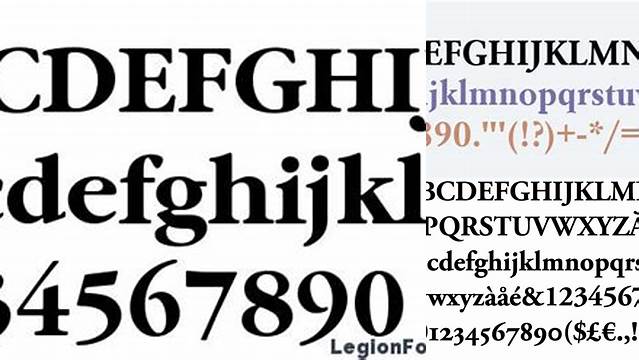
Introduction to Urw Garamond Bold Font
Urw Garamond Bold font is a timeless classic that has graced countless publications and designs over the years. Its elegant curves and strong presence make it a favorite among designers and typographers alike. This article delves into the history, characteristics, and availability of Urw Garamond Bold font, with a focus on how you can access it for free.
Garamond, as a typeface, has a rich history dating back to the 16th century. Claude Garamond, a Parisian printer, and punch cutter, is credited with creating the original Garamond typeface. His designs were based on the Aldine Roman types, which were themselves inspired by humanist minuscule letterforms. Garamond's fonts were known for their readability, elegance, and balance, and they quickly became popular throughout Europe. Over the centuries, Garamond's designs have been reinterpreted and adapted by various foundries and designers, resulting in a wide range of Garamond variations. Urw Garamond is one such variation, created by the URW (Unified Roman Works) studio. It is a digital adaptation of the classic Garamond typeface, designed to be both faithful to the original and optimized for modern use. Urw Garamond Bold is a specific weight of the Urw Garamond family, characterized by its heavier strokes and increased visual impact. The bold weight is ideal for headlines, subheadings, and other text elements that need to stand out. It retains the elegance and readability of the regular Garamond weight while adding a touch of authority and emphasis. The Urw Garamond Bold font is a versatile typeface that can be used in a wide range of design applications. Its classic appearance makes it suitable for traditional and formal designs, while its clean lines and modern construction allow it to be used in more contemporary contexts as well. Whether you're designing a book, a website, or a corporate identity, Urw Garamond Bold font can add a touch of sophistication and class to your work.
Key Characteristics of Urw Garamond Bold
Understanding the key characteristics of Urw Garamond Bold font is essential for appreciating its design and using it effectively. This section will explore the defining features that make this font so distinctive and versatile.
One of the most notable characteristics of Urw Garamond Bold font is its elegance. The font's letterforms are characterized by smooth, flowing curves and a refined aesthetic. This elegance makes it suitable for high-end designs, such as those used in the fashion, beauty, and luxury industries. The font's elegance is not just a matter of aesthetics; it also contributes to its readability. The well-proportioned letterforms and generous spacing make it easy to read, even at small sizes. Another key characteristic of Urw Garamond Bold font is its legibility. The font is designed to be easy to read in a variety of contexts, from print to digital. The letterforms are clear and distinct, and the font's overall design is optimized for readability. This legibility makes it a good choice for body text, as well as headlines and subheadings. In addition to its elegance and legibility, Urw Garamond Bold font is also known for its versatility. The font can be used in a wide range of design applications, from traditional to modern. Its classic appearance makes it suitable for formal designs, while its clean lines and modern construction allow it to be used in more contemporary contexts as well. Urw Garamond Bold font is also characterized by its strong presence. The bold weight gives the font a commanding presence on the page, making it ideal for headlines, subheadings, and other text elements that need to stand out. The bold weight also adds a touch of authority and emphasis to the text. The Urw Garamond Bold font features a classic design. The font is based on the original Garamond typeface, which was created in the 16th century. This classic design gives the font a timeless quality that makes it suitable for a wide range of applications. The font's classic design is also a testament to its enduring appeal. Despite being centuries old, the Garamond typeface remains one of the most popular and widely used fonts in the world.
Tips for Using Urw Garamond Bold Effectively
To make the most of Urw Garamond Bold font, keep these tips in mind. They'll help you ensure your designs are both beautiful and functional.
Firstly, use it sparingly. Urw Garamond Bold font is a strong and distinctive typeface, so it's best to use it sparingly. Overusing it can make your design look cluttered and overwhelming. Instead, use it to highlight key elements, such as headlines, subheadings, and callouts. This will help to draw the reader's eye to the most important parts of your design. Secondly, pair it with a complementary font. Urw Garamond Bold font pairs well with a variety of other typefaces. Some good options include sans-serif fonts like Helvetica or Arial, as well as other serif fonts like Times New Roman or Georgia. Experiment with different font pairings to find a combination that works well for your design. When pairing fonts, it's important to consider the overall tone and style of your design. Choose fonts that complement each other and create a cohesive look. Thirdly, adjust the letter spacing and line height. Urw Garamond Bold font can sometimes appear a bit cramped, especially at smaller sizes. To improve readability, try adjusting the letter spacing and line height. Increasing the letter spacing can help to make the font more legible, while increasing the line height can make the text easier to read. Be sure to experiment with different settings to find a combination that works well for your design. In addition to adjusting the letter spacing and line height, you should also pay attention to the kerning. Kerning is the process of adjusting the spacing between individual letters to improve the overall appearance of the text. Urw Garamond Bold font can sometimes have awkward kerning, especially between certain letter combinations. To fix this, you can manually adjust the kerning in your design software. This can help to make the text look more polished and professional. Finally, use it at the right size. Urw Garamond Bold font is best used at larger sizes, such as for headlines and subheadings. Using it at smaller sizes can make it difficult to read. If you need to use it at a smaller size, try increasing the letter spacing and line height to improve readability. Also, be sure to consider the overall design of your project when choosing the font size. The font size should be appropriate for the overall scale of the design. By following these tips, you can use Urw Garamond Bold font effectively and create beautiful and functional designs.
Conclusion: Embrace the Elegance of Urw Garamond Bold